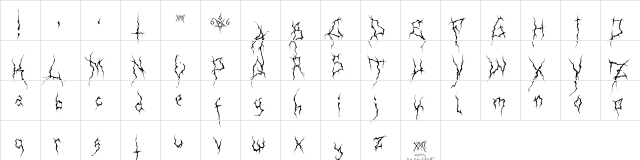
XXII Ultimate-Black-Metal Fallen-Angel Free Font
XXII Ultimate-Black-Metal Fallen-Angel
Style: Fallen-Angel
Foundry: Lecter Johnson
Designer: Lecter Johnson
Design Context for XXII Ultimate-Black-Metal
XXII Ultimate-Black-Metal is a composed and adaptable typeface that performs quietly and consistently across a wide range of design contexts.